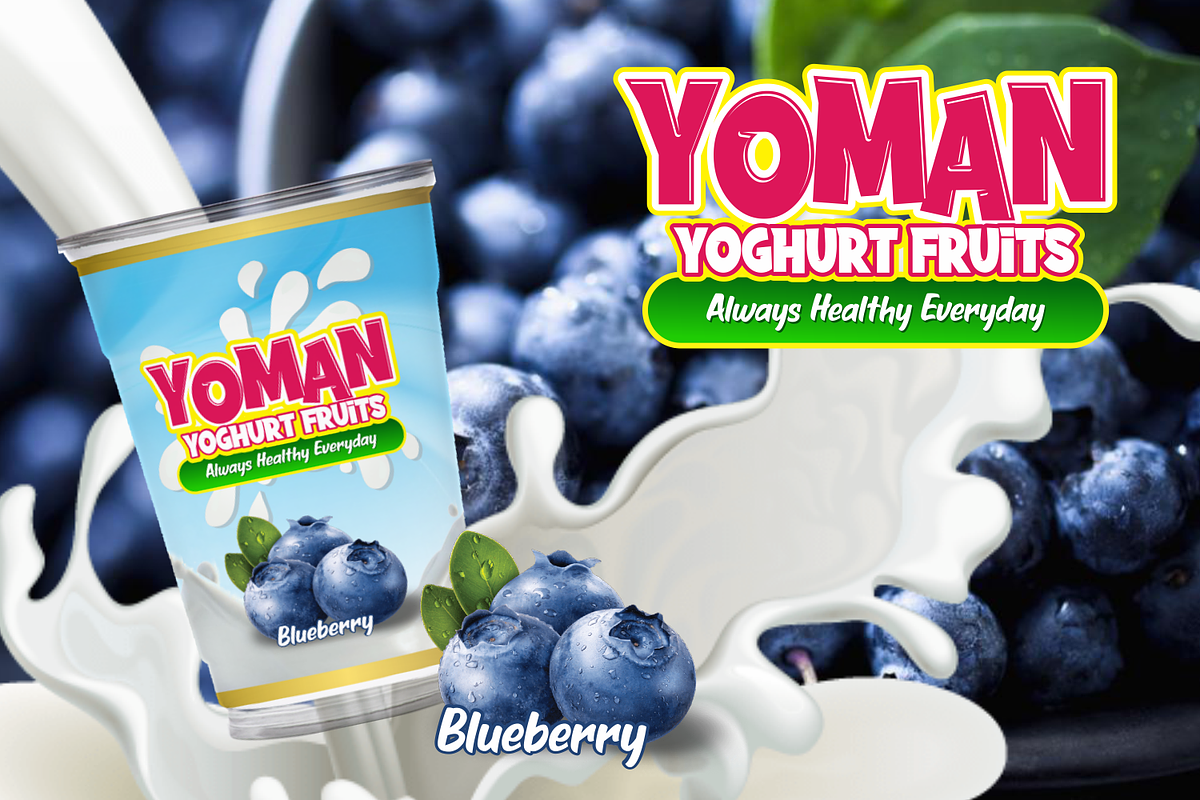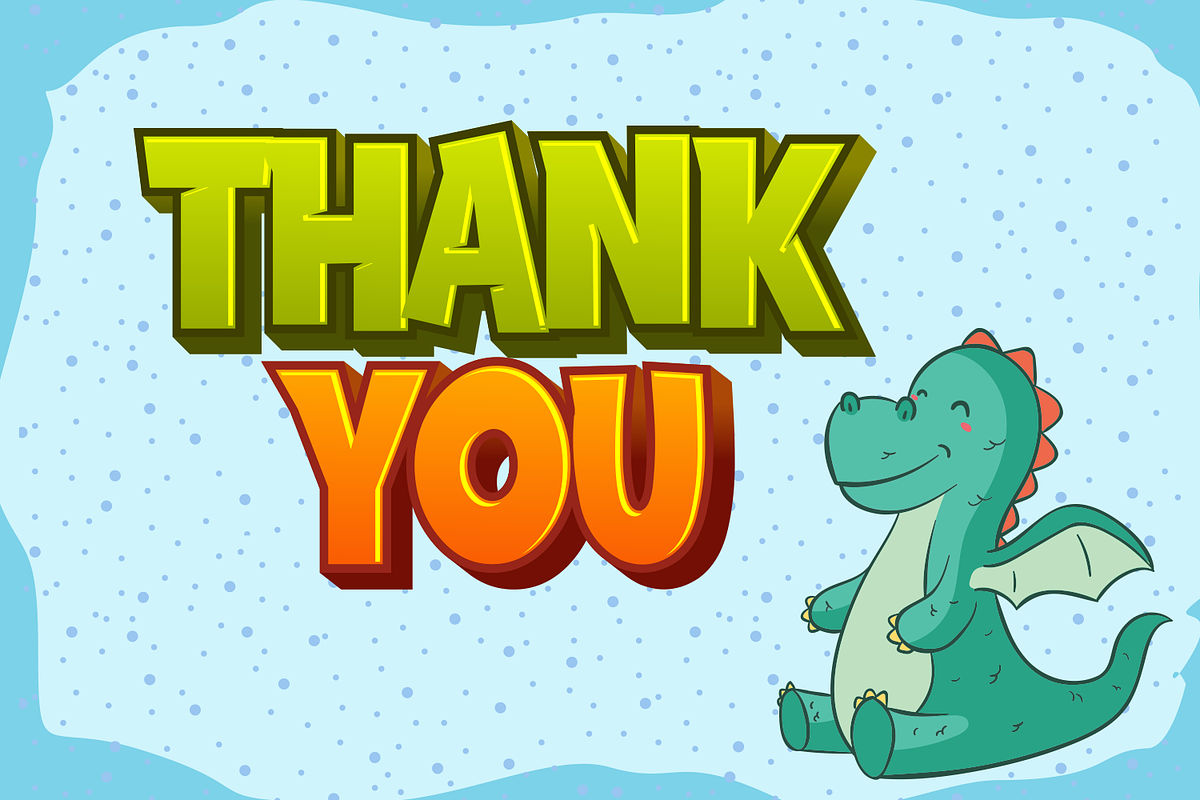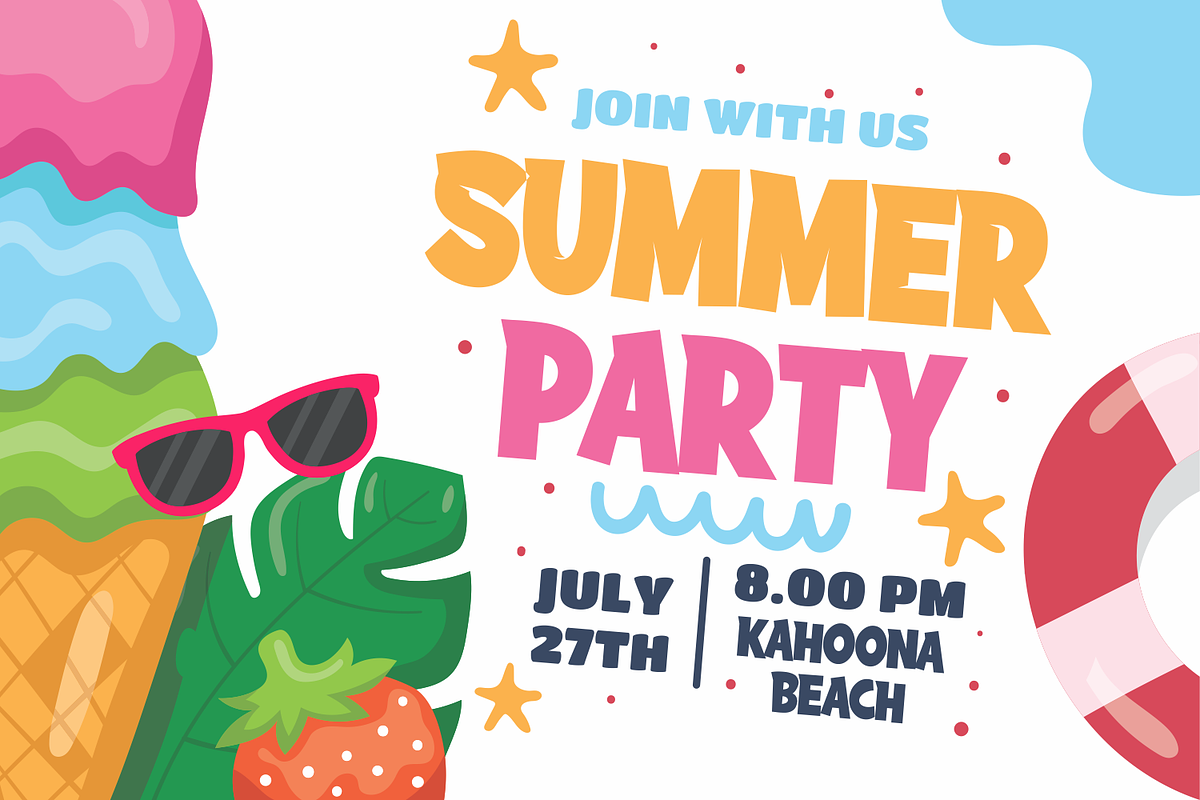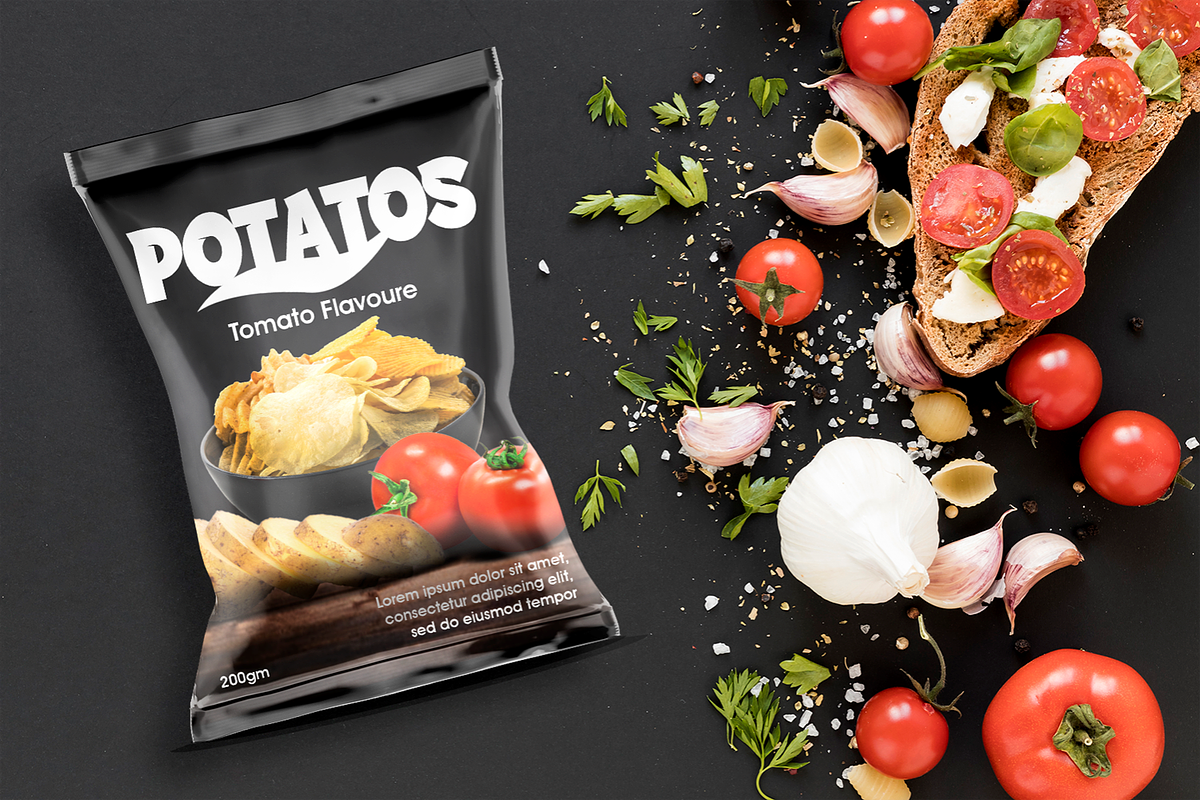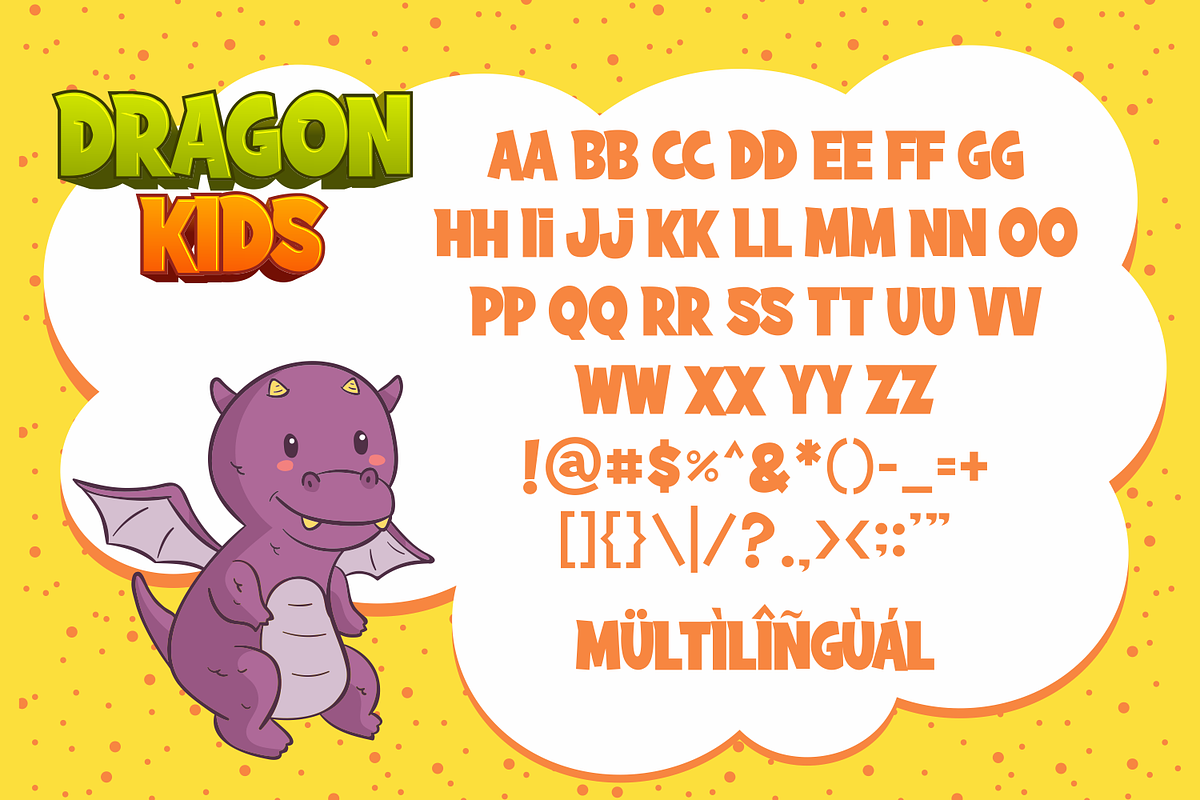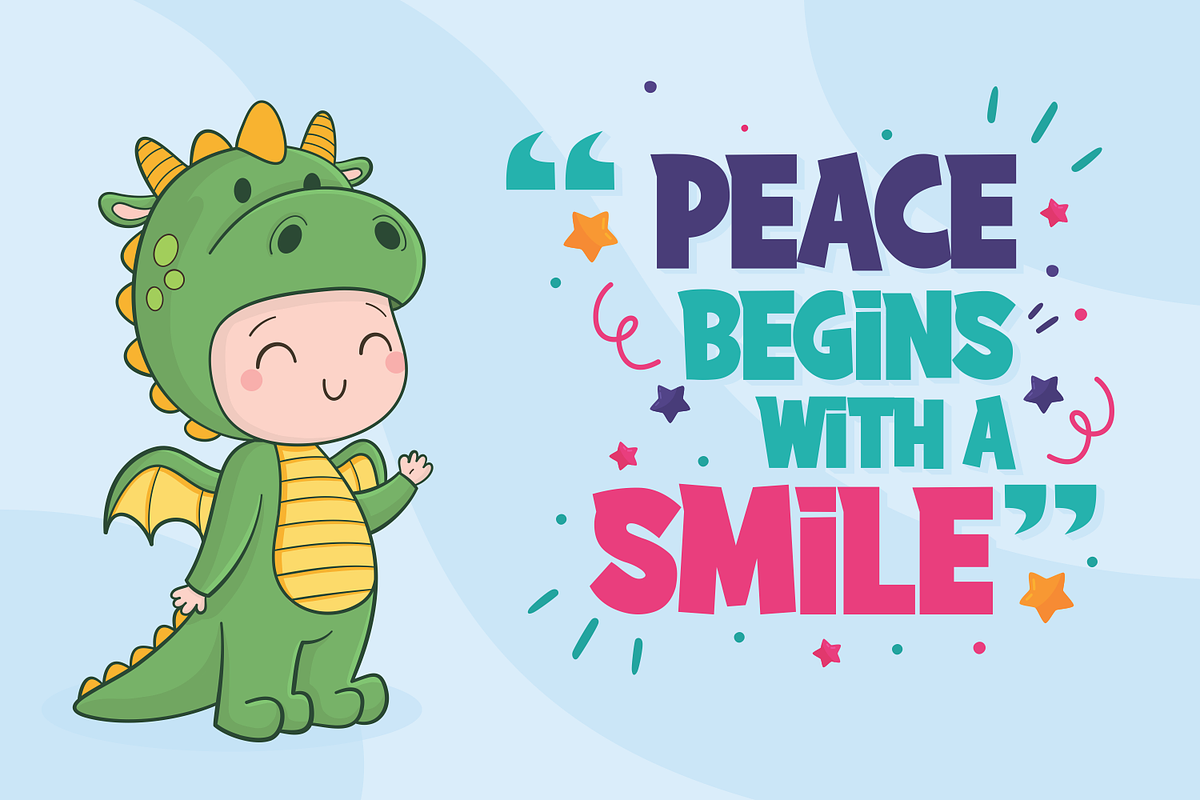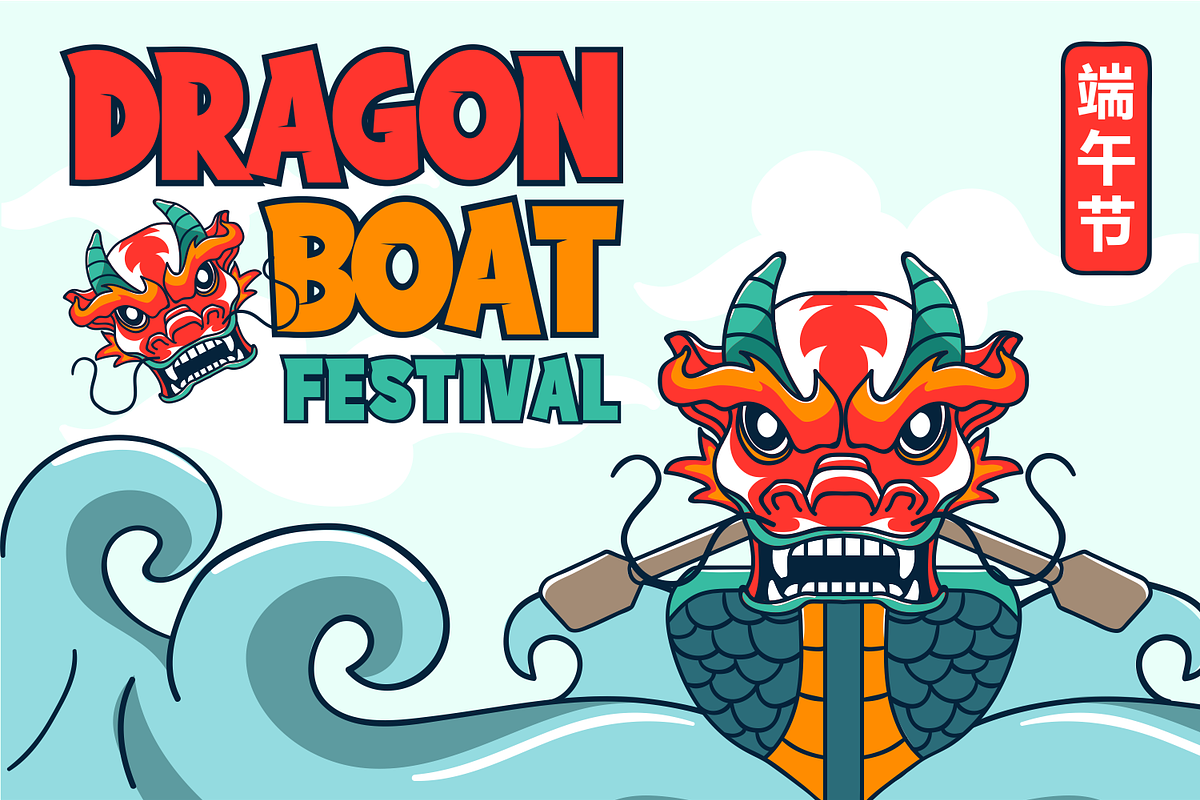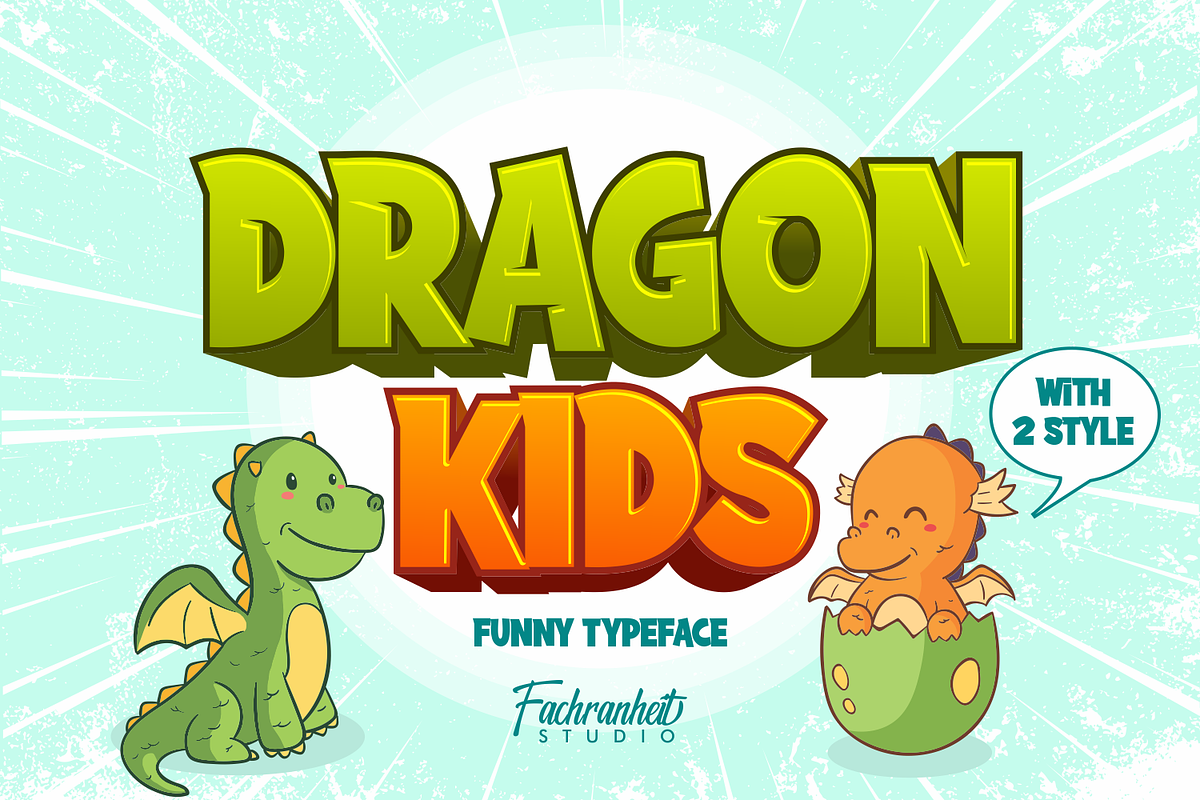
Dragon Kids
Dragon Kids is a display font
The unique and simple characteristics of Dragon Kids make it very suitable for various purposes such as quotes, t-shirt designs, flyers, youtube channels, labels, logos etc. Here come with 2 style.